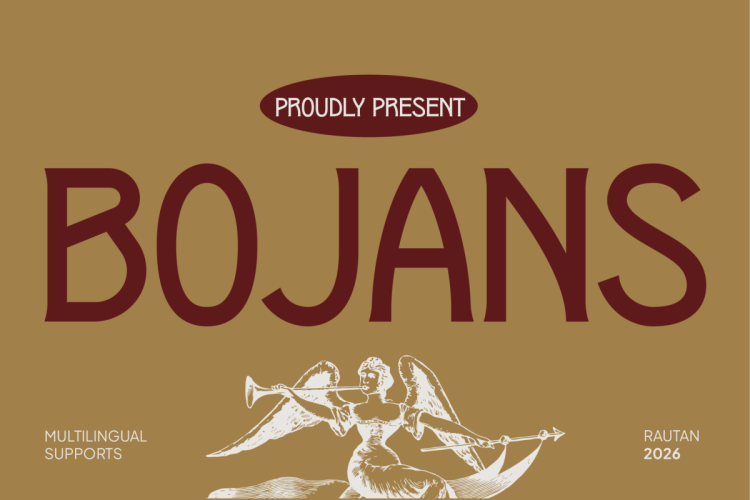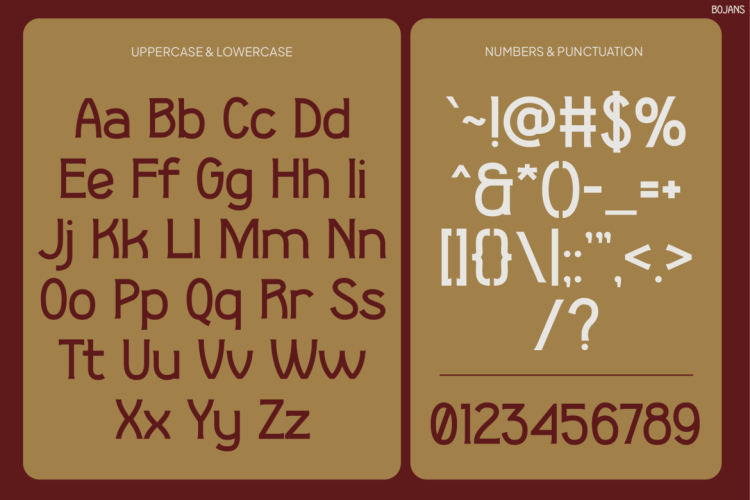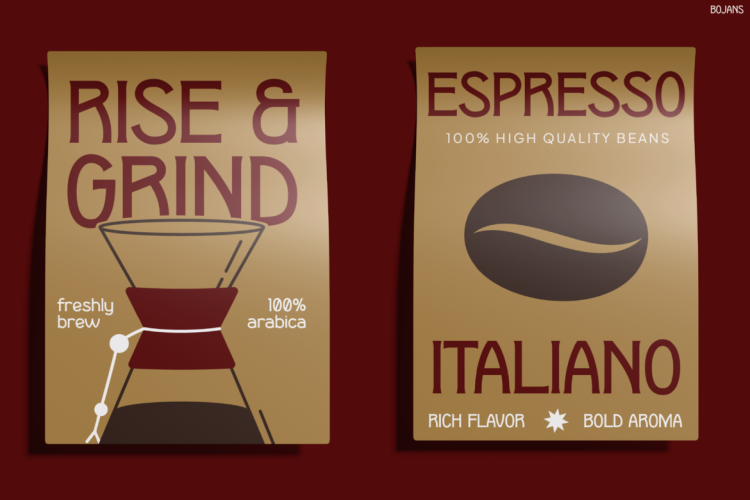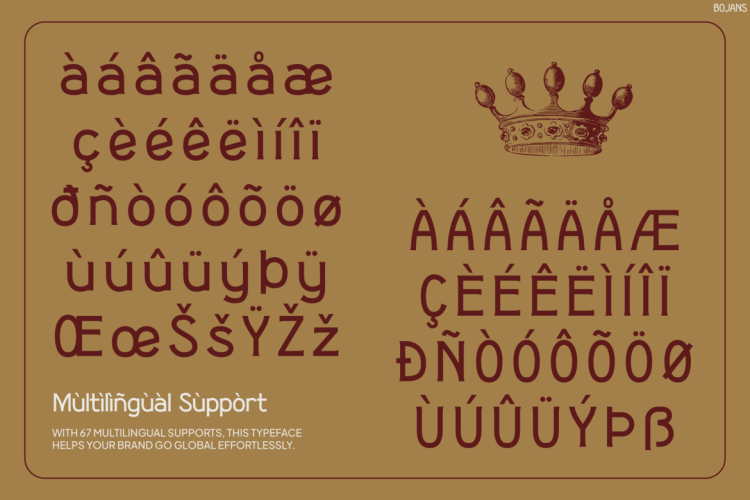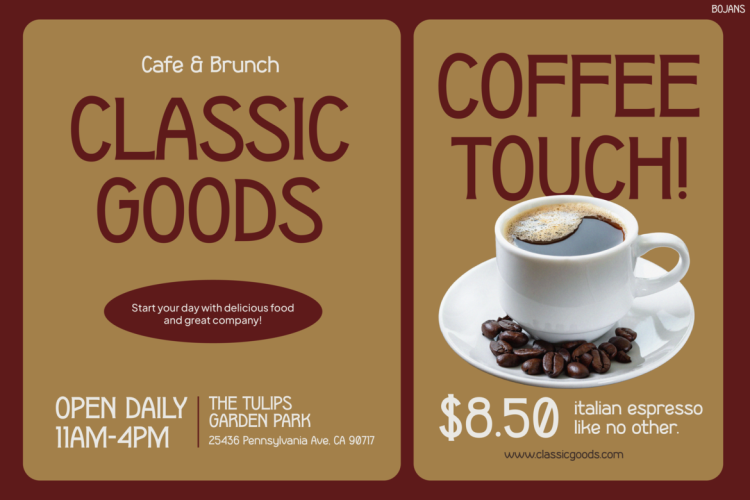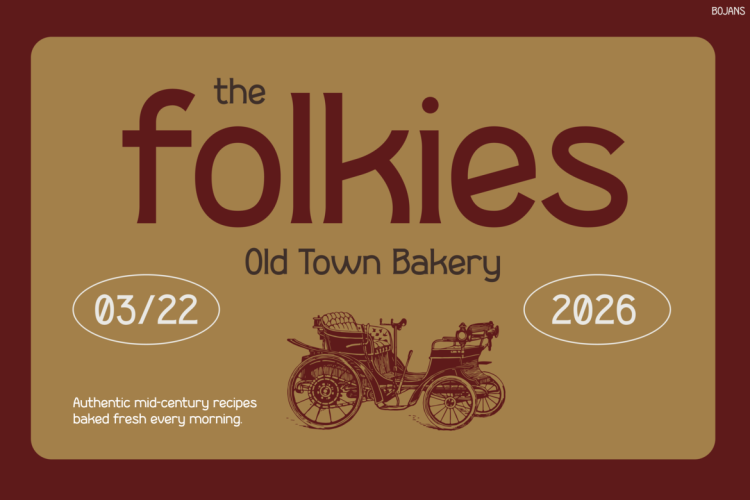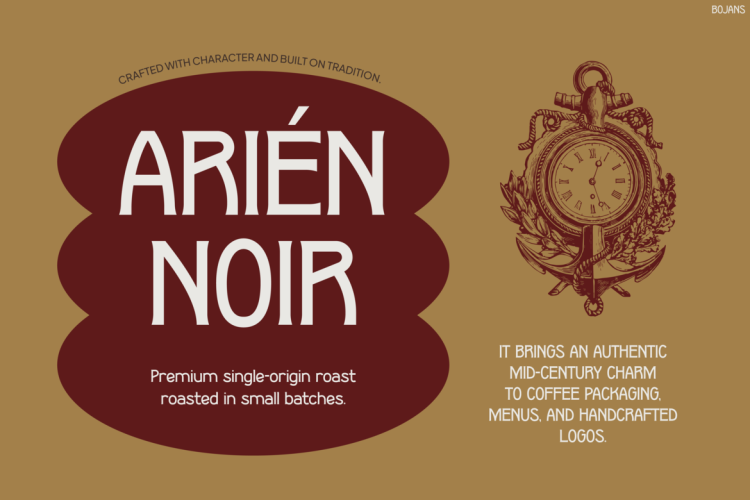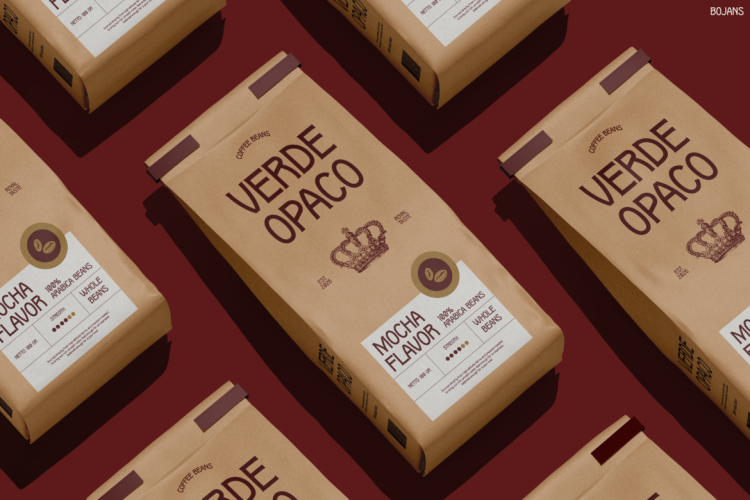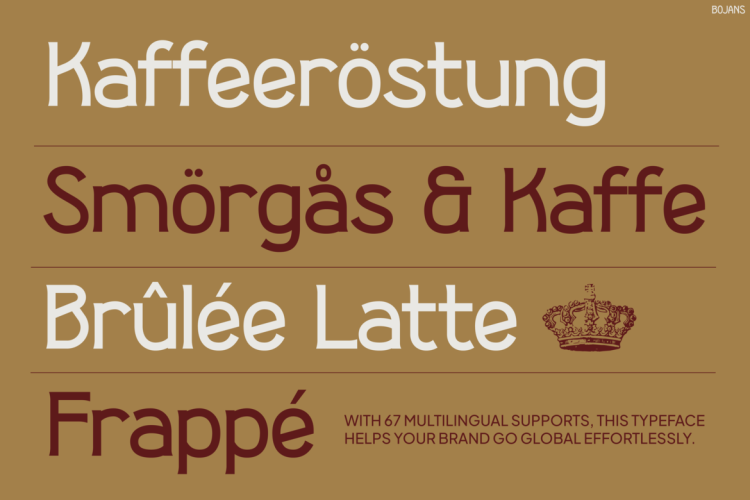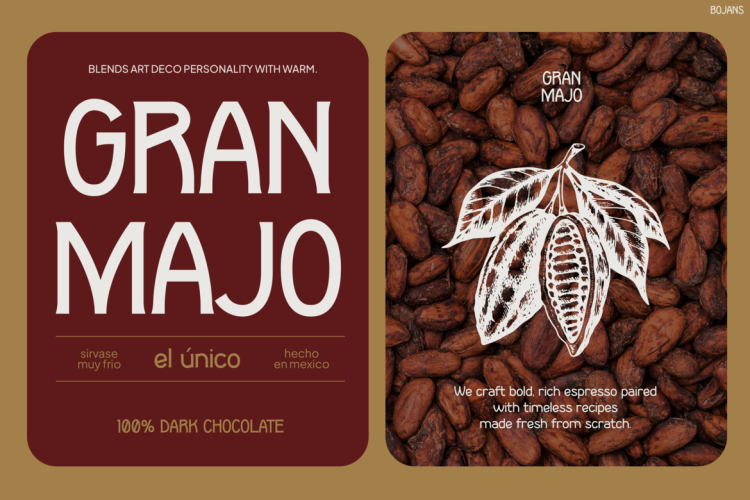
BOJANS โ Vintage Cafรฉ & Classic Display Font
Vintage Font BOJANS brings warm retro character to modern designs. Specifically, it features elegant letterforms, balanced proportions, and a nostalgic visual mood. The style draws inspiration from classic cafรฉ signs, bakery labels, and coffee packaging. Additionally, it nods to traditional European-inspired branding. As a result, it creates a distinctive look with ease.
Moreover, its clean structure keeps headlines readable. At the same time, it gives every layout a memorable vintage touch. On top of that, BOJANS comes with Multilingual Support for 67 Languages. Therefore, you can design for a wider range of audiences.
Vintage Font BOJANS Perfect For Your Creative Projects
BOJANS is a great choice for branding designers and packaging creatives. Similarly, cafรฉ owners, illustrators, and creative entrepreneurs will love it too. For instance, you can use it for coffee packaging, bakery branding, or chocolate labels. It also works well for restaurant menus and vintage posters. Furthermore, try it for editorial layouts, logos, and signage. It’s equally suited to product labels and social media graphics.
In addition, its classic personality pairs beautifully with illustrations and decorative elements. It also complements product photography and warm color palettes.
Whether you’re building a cozy coffee brand or a nostalgic food campaign, BOJANS adds warmth and personality. Meanwhile, its versatile character makes it easy to adapt across different visual concepts. As a result, simple layouts can instantly feel more distinctive and thoughtfully crafted.
Give Your Design a Vintage Twist